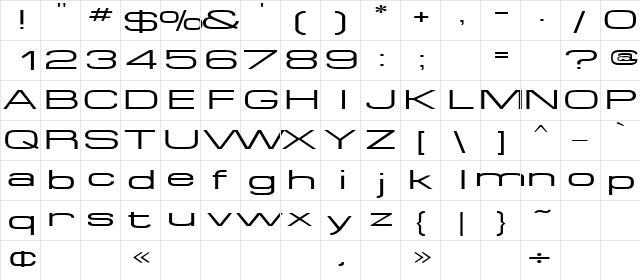
SpaceOutExtended Regular
Design Context for SpaceOutExtended Typeface
SpaceOutExtended is a composed and adaptable typeface that performs quietly and consistently across a wide range of design contexts.